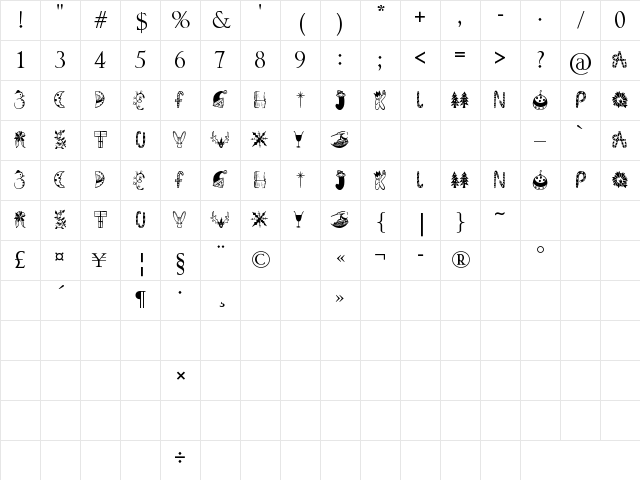
Kringley Christmas Regular Free Font
Kringley Christmas Regular
Complete Kringley Christmas Regular glyph index. Displaying only characters natively supported by Kringley Christmas Regular font.
Design Context for Kringley Christmas
Kringley Christmas is a composed and adaptable typeface that performs quietly and consistently across a wide range of design contexts.